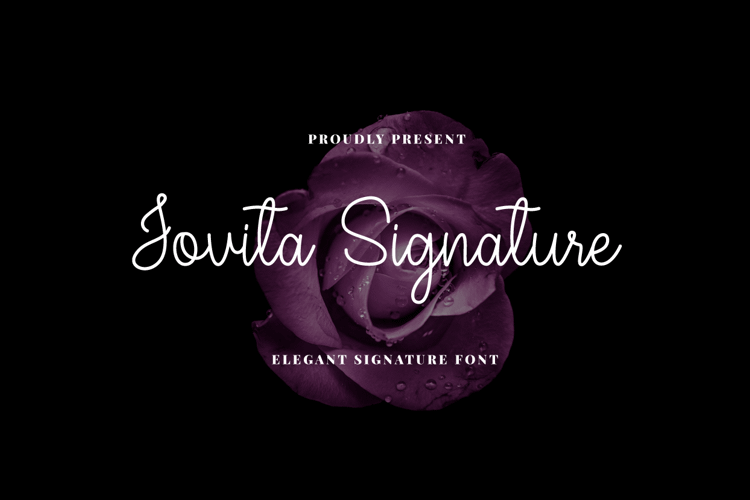
Jovita Signature Font
About Jovita Signature Font
Jovita Signature is a thin lettered, delicate and elegant script font. Fall for its well-balanced characters and use it to create gorgeous wedding invitations, beautiful stationary art, eye-catching social media posts, and much more!